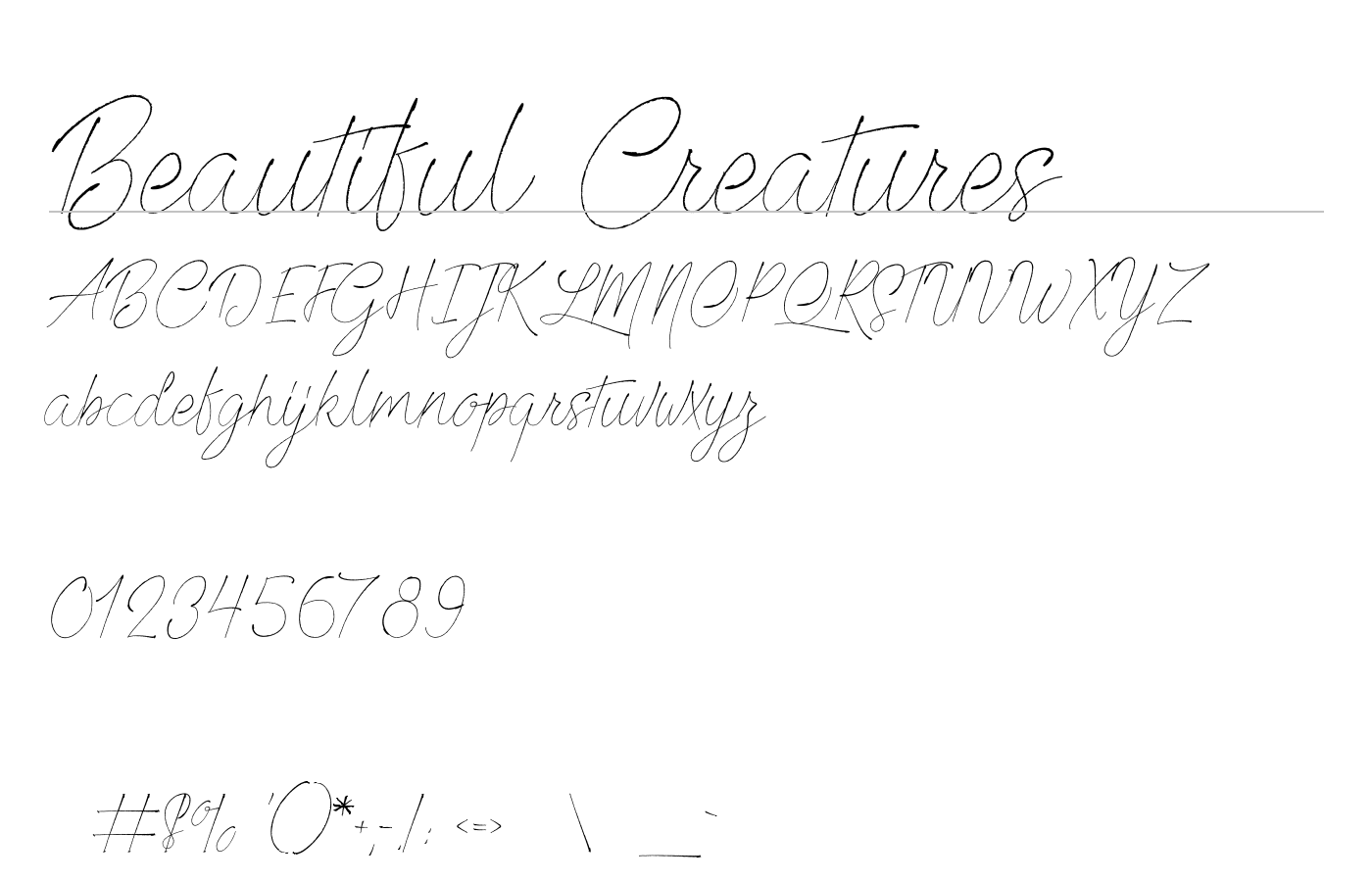
Beautiful Creatures is a delicate script font with an elegant, hand-drawn feel characterized by fine, flowing strokes and graceful letterforms. Its slender lines and airy spacing convey a romantic and sophisticated mood, making it ideal for wedding invitations, luxury branding, and artistic projects where a personal, stylish touch is desired. This font works beautifully in headlines or decorative text where its airy, ornamental style can shine.
Beautiful Creatures Font
About Beautiful Creatures Font